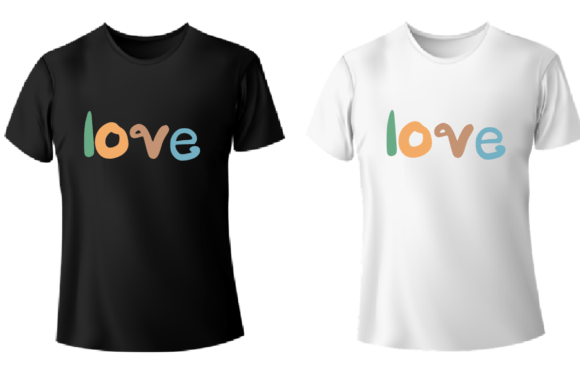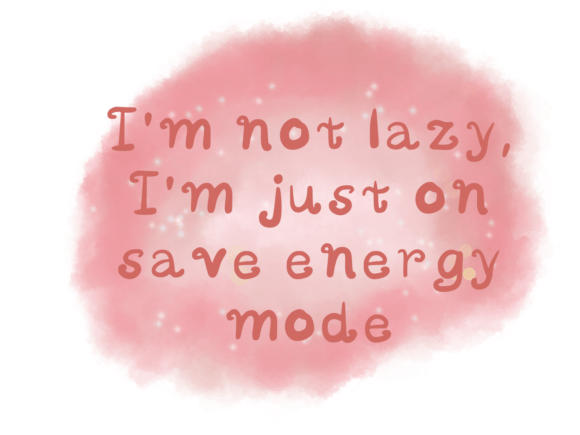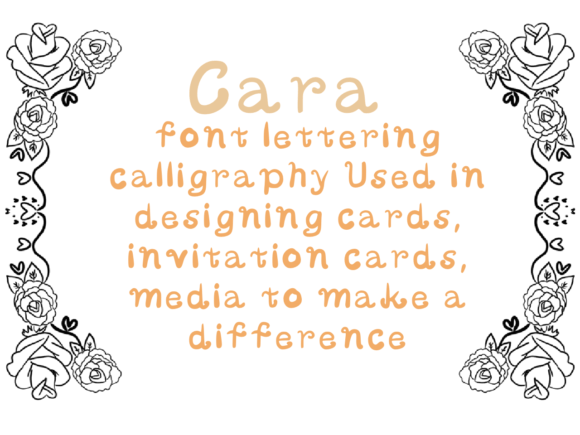
Discover the Unique Charm of Cara Font: Elevate Your Design Work
As a designer, I’ve had my fair share of moments where I’ve struggled to find the perfect font for a project. I recall working on a wedding invitation card design, wanting something that would make it stand out, but every font I tried seemed too generic or overused. That’s when I stumbled upon the Cara Font, a beautifully crafted font that added a touch of elegance and personality to my design. In this article, I’ll share with you my experience with Cara Font, its features, and how you can use it to elevate your design work.
A Personal Experience with Cara Font
I was working on a project for a client who wanted a custom wedding invitation card. The client had a clear vision of what they wanted – something elegant, sophisticated, and unique. I tried several fonts, but none seemed to fit the bill. That’s when I discovered Cara Font. I was immediately drawn to its unique character design, which was inspired by handwriting with different brushes. The font’s varied strokes and artistic flair added a touch of personality to my design, making it stand out from the rest.
What I Love About Cara Font
- ✨ Unique character design inspired by handwriting with different brushes
- ✅ Elegant and sophisticated feel, perfect for special occasions
- ✅ Highly versatile, suitable for various design projects, including cards, invitations, and more
- ✅ OpenType features, including glyphs and stylistic alternates, for added customization
While Cara Font is an excellent choice for many design projects, there are a few things to keep in mind:
- ⚠️ Limited language support, so it’s best to use it for English or similar languages
- 🤔 May not be the best choice for body text, as it’s more suited for headings and titles
The Story Behind Cara Font
Cara Font was designed with the intention of creating a unique and elegant font that would add a touch of personality to design projects. The font’s creator was inspired by the art of handwriting and the use of different brushes to create varied strokes and artistic flair. The result is a font that’s both elegant and sophisticated, perfect for special occasions and design projects that require a touch of uniqueness.
| What is Cara Font? | Cara Font is a beautifully crafted font that features unique character design inspired by handwriting with different brushes. |
| What can I use Cara Font for? | Cara Font is highly versatile and can be used for various design projects, including cards, invitations, and more. |